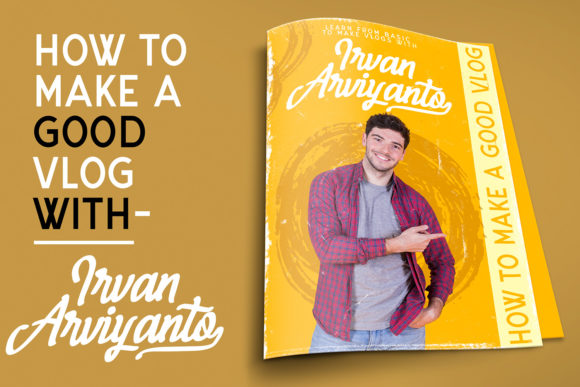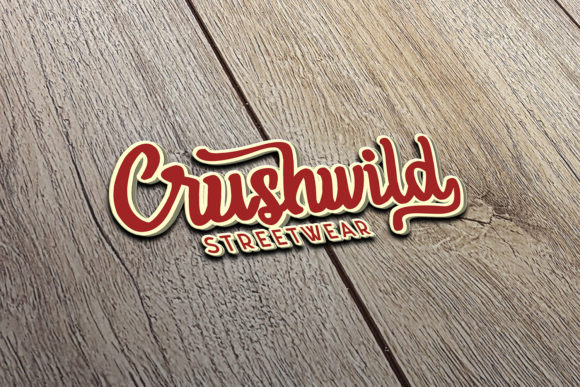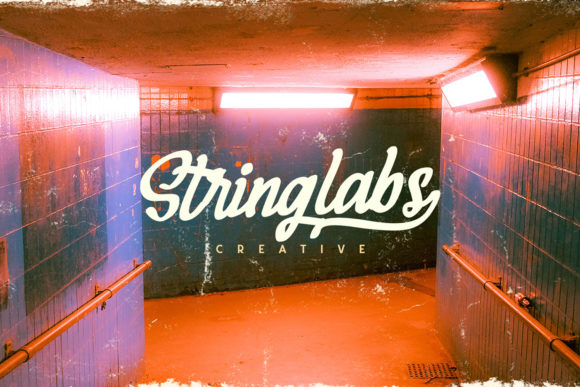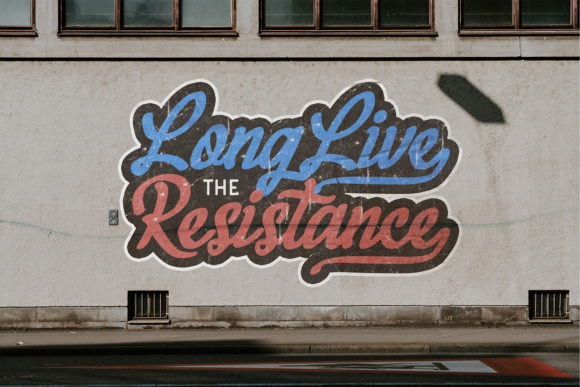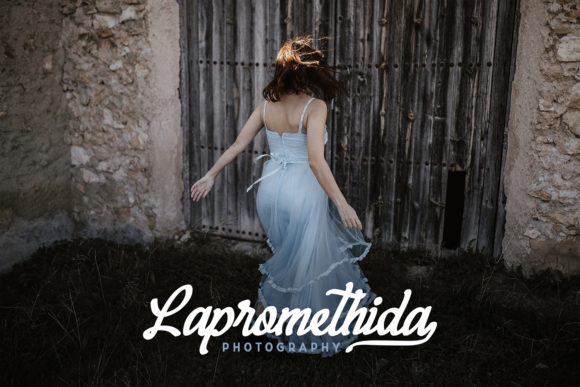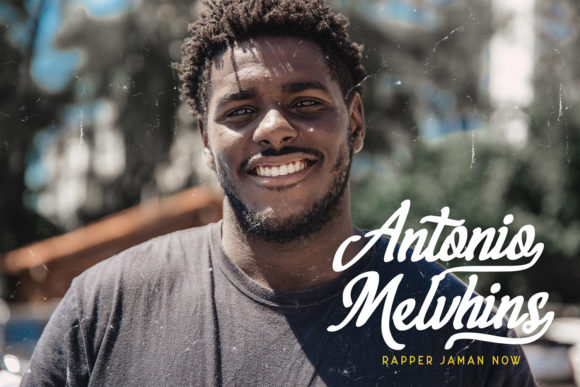
Introduction to Megahunt Font
Megahunt is inspired by classic typography and brings its own unique style to any design project.
This font is perfect for fashion brand, wedding invitations, business cards, logos, signatures, and much more This font is PUA encoded which means you can access all of the great glyphs and swashes with ease.
Key Features of Megahunt Font
Why Choose Megahunt Font?
Megahunt Font offers exceptional quality and versatility, making it a valuable addition to your design toolkit. Whether you’re creating for personal projects or commercial use, Megahunt Font delivers professional results.